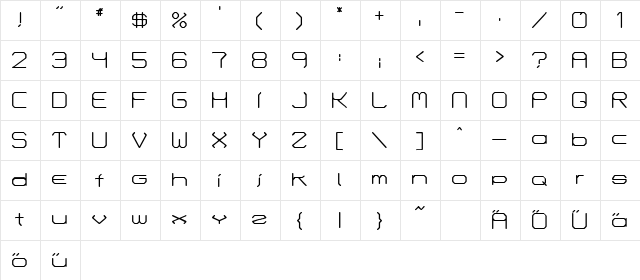
Fontmaker's Choice Regular
Design Context for Fontmaker's Choice Typeface
Fontmaker's Choice is a composed and adaptable typeface that performs quietly and consistently across a wide range of design contexts.